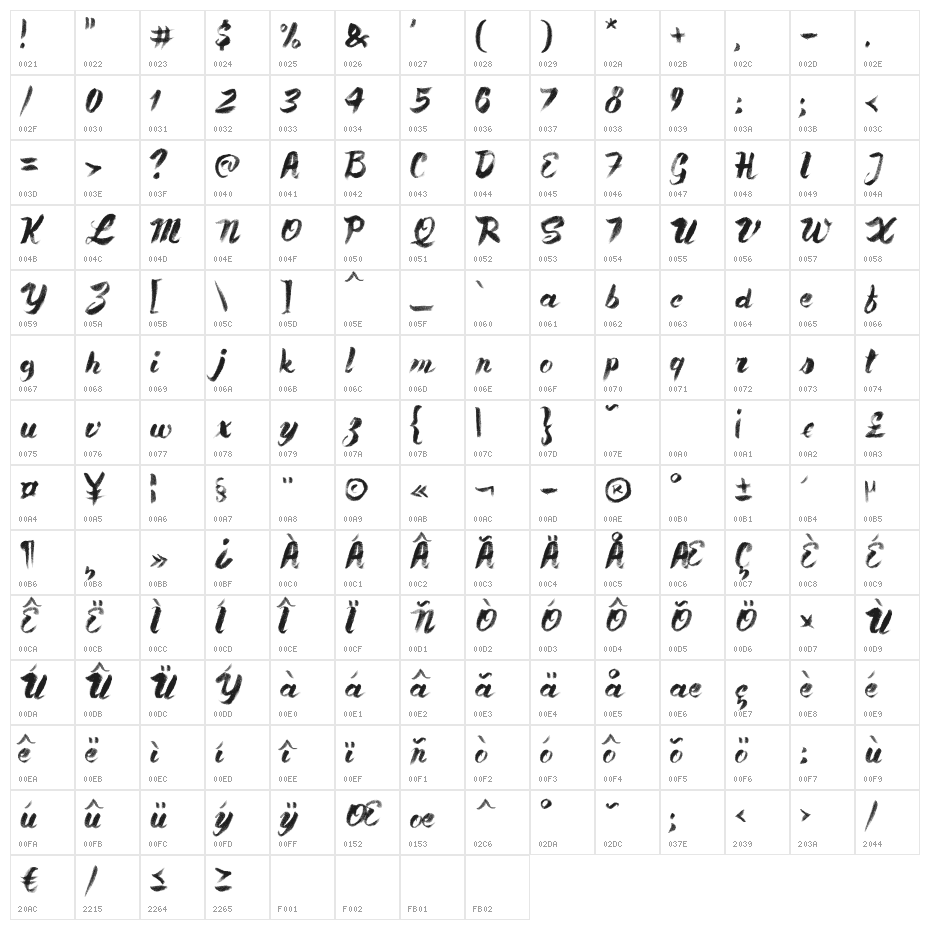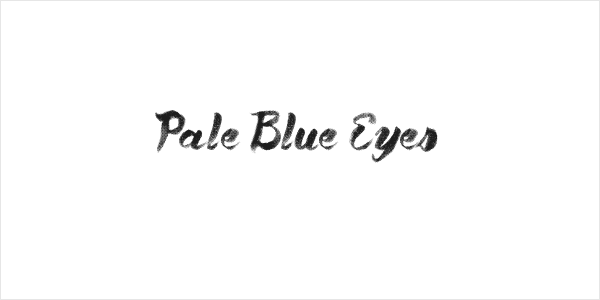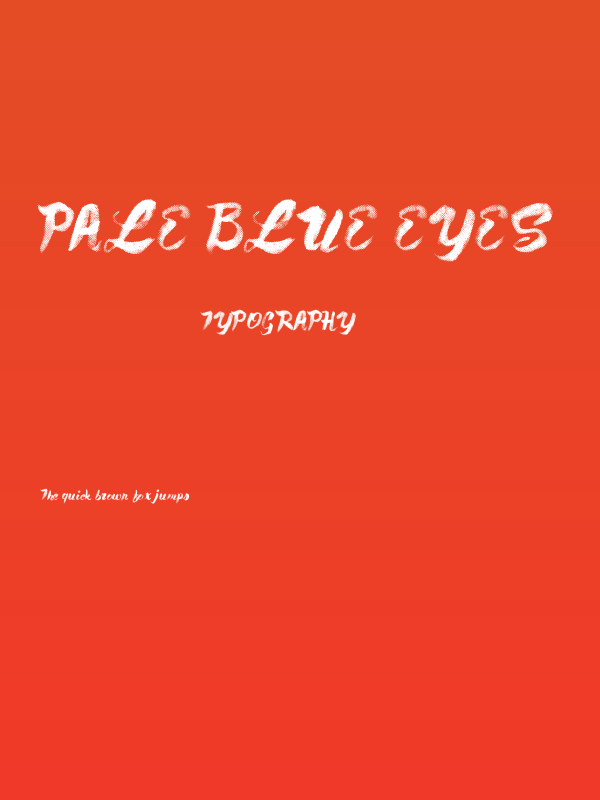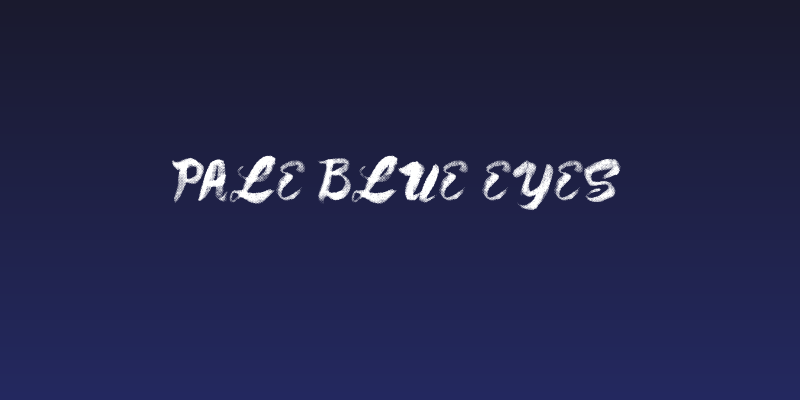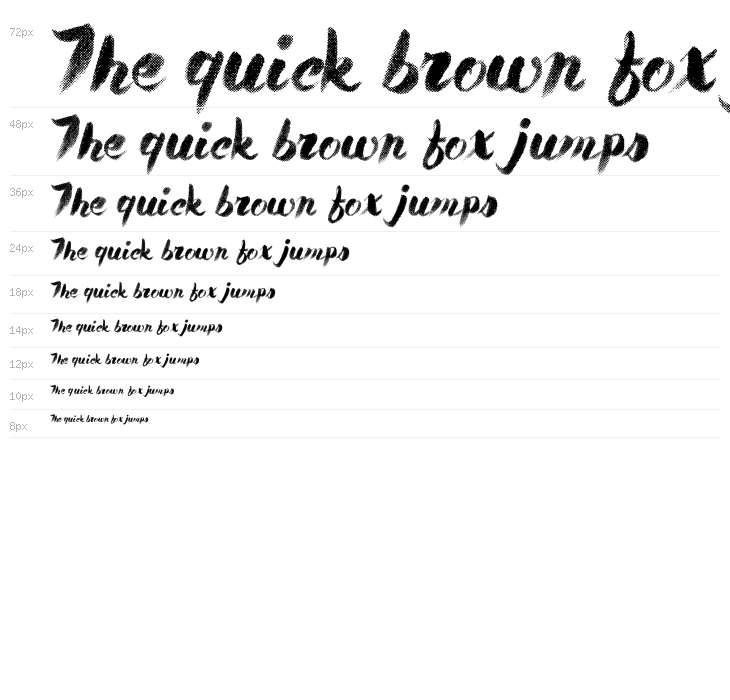
Pale Blue Eyes Font
Pale Blue Eyes Description
This font features a bold, brush-like script style with a textured appearance that mimics hand-painted strokes. The characters are dynamic and fluid, with a sense of movement and energy. Uppercase letters are slightly more structured, while lowercase letters have a more casual, flowing look. The numbers and special characters maintain the same artistic flair, ensuring consistency across all elements. The texture adds depth and a tactile feel, making it stand out in digital and print formats. This font is ideal for projects that require a personal, artistic touch.
Use CaseLogos, Headlines, Artistic projects
Proposed ProjectsIdeal for artistic projects, branding, posters, invitations, and any design needing a personal, creative touch.